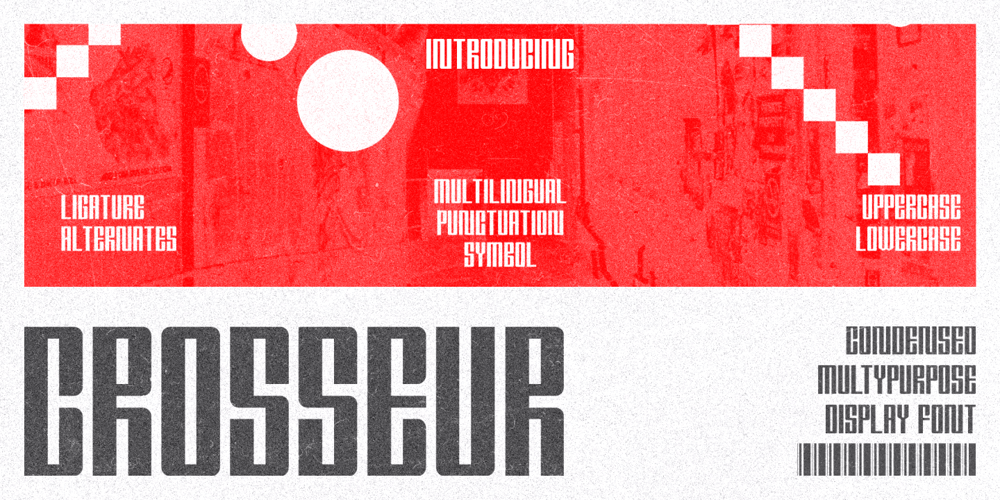
Crosseur Font Family was designed by Fajar Ramadan and published by Eotype. Crosseur contains 1 styles and family package options. Crosseur is a versatile, modern and unique condensed san serif font. Designed by Eotype Studio, It has a unique style with stylistic, alternates, ligatures and supports multilingual languages.Create unique & beautiful logotype, use it as an elegant solution for your next magazine layout, or choose Crosseur for any graphics that require a bold look with a unique.